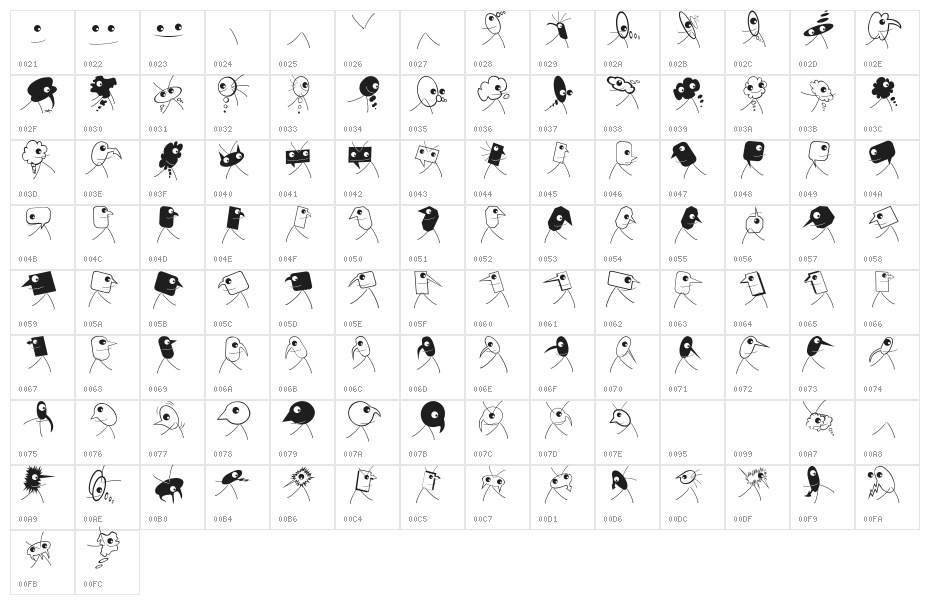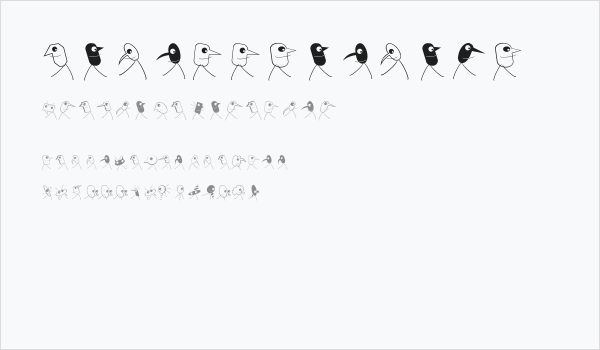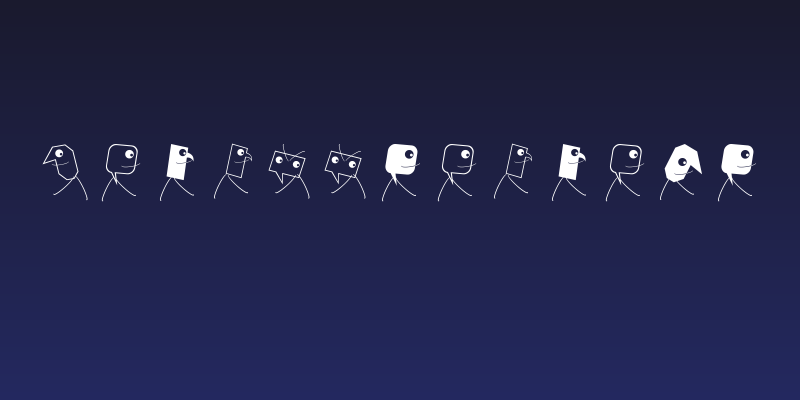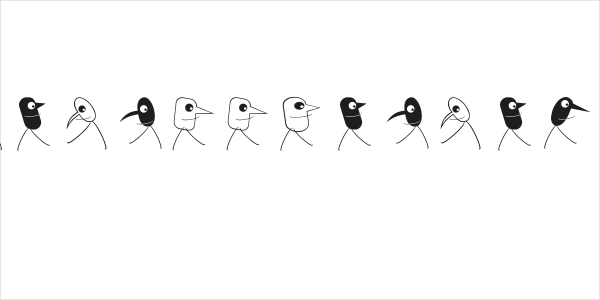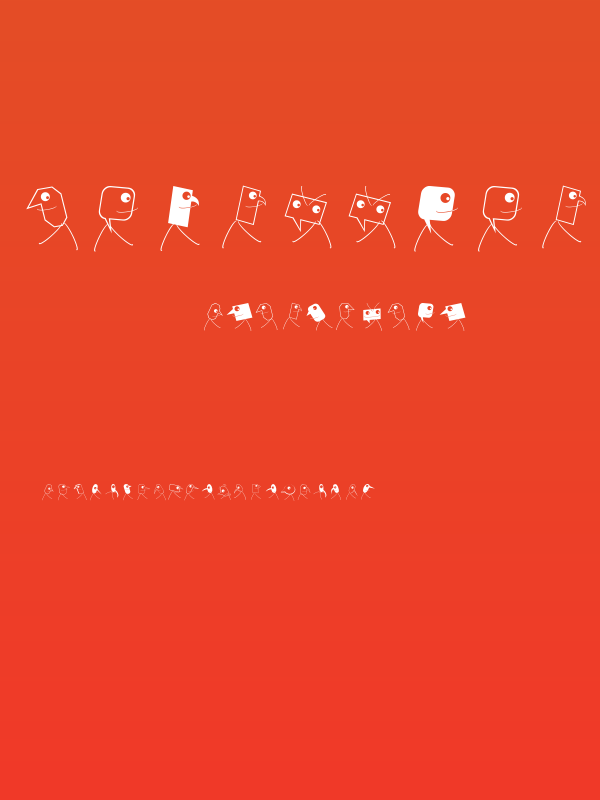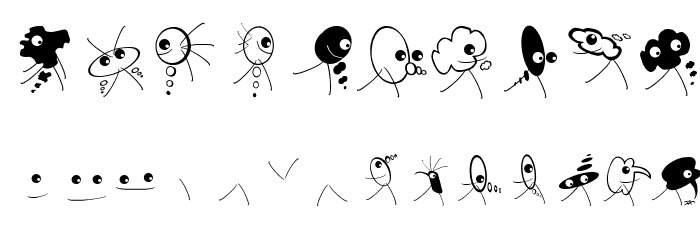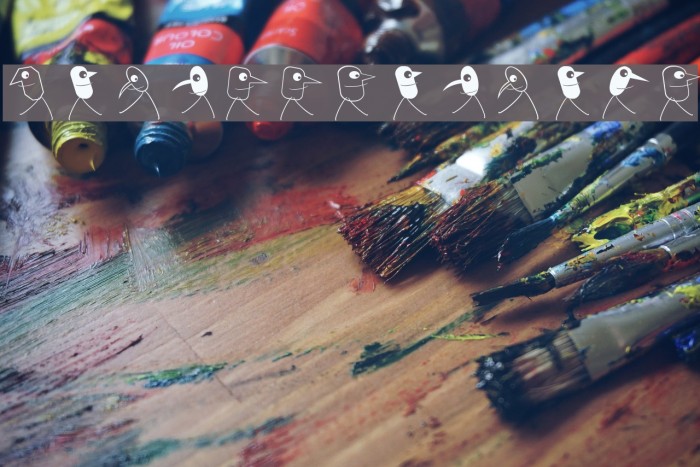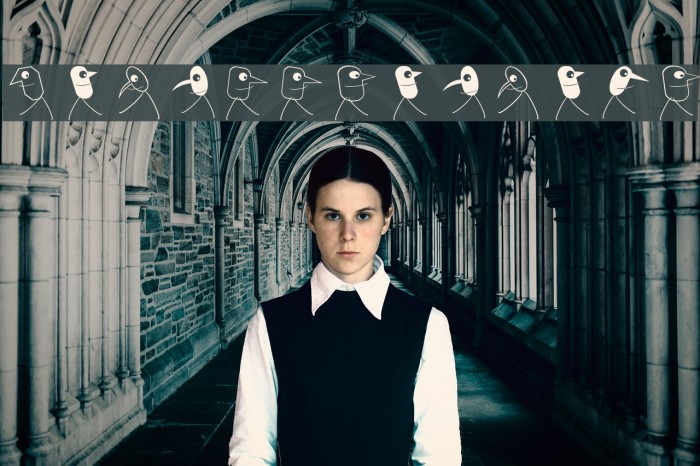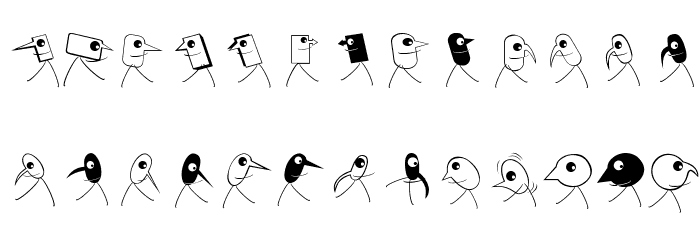
Pinocchionish Font
A whimsical, highly decorative font where each character is represented by a playful stick-figure illustration with exaggerated features and expressive poses, blending cartoonish and abstract elements.
| Overall Style | Decorative, Whimsical, Cartoonish |
| Use Case | Logos, Headlines, Posters, Children's content |
| Proposed Projects | Children's books, playful posters, creative branding, comic strips, educational materials. |